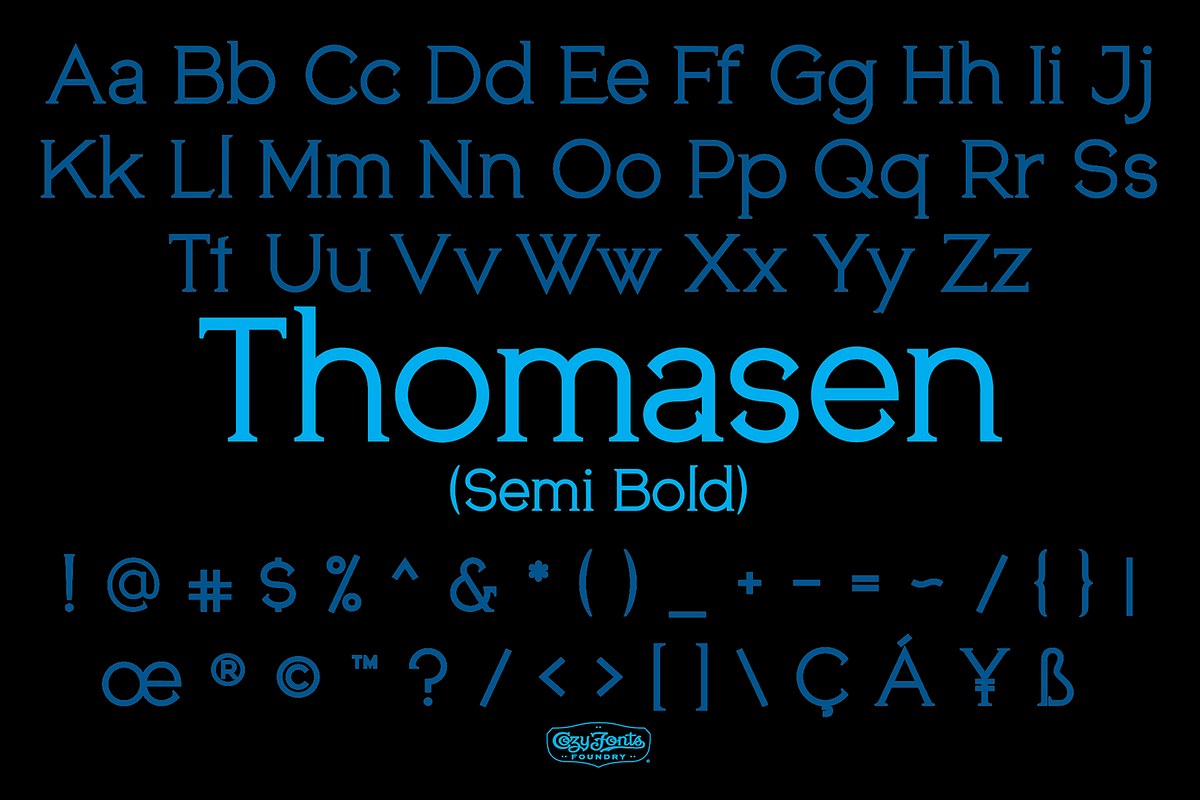
Thomasen Semi Bold
Thomasen font families were designed with a classic approach to even-weighted glyphs with pointed serifs. Thomasen is currently available in 4 styles, ie. Regular, Italic, Semi-Bold, & Stenciil. This display family is perfect for headlines, title credits, announcements, logos, brand design systems, invitations, and signage. The letterforms and dingbat characters are familiar yet new in feel. The appearance is timeless. This is the 25th font family from Tom Nikosey's Cozyfonts Foundry with each style containing over 380 glyphs and working in over 100 languages.